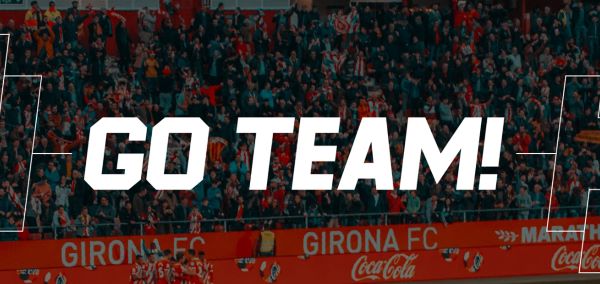
Go Team! Font
Go Team! by John Benedict Mangco is a free bold display font purpose-built for sports, team branding, and high-energy design contexts that need to project enthusiasm and collective spirit. Its strong, confident letterforms carry the visual energy of stadium signage and jersey typography — sturdy enough to hold up at large sizes, lively enough to feel alive on the page. Whether used for team logos, event posters, apparel graphics, or sports editorial, Go Team! brings exactly the right attitude to any design that needs to cheer louder. Available free for personal use.